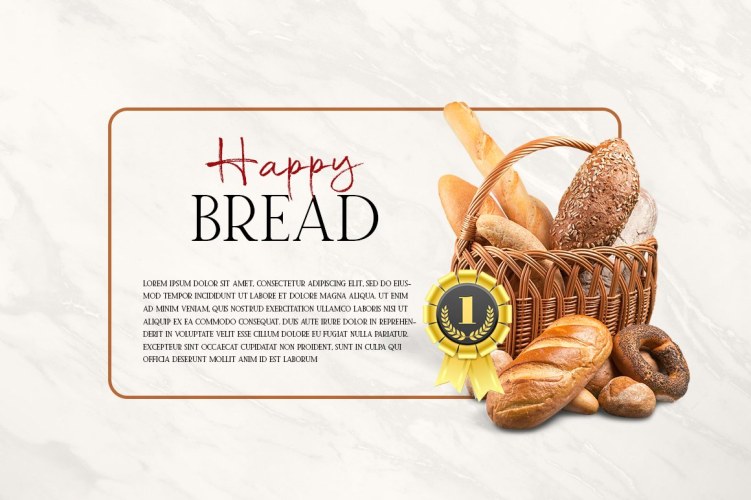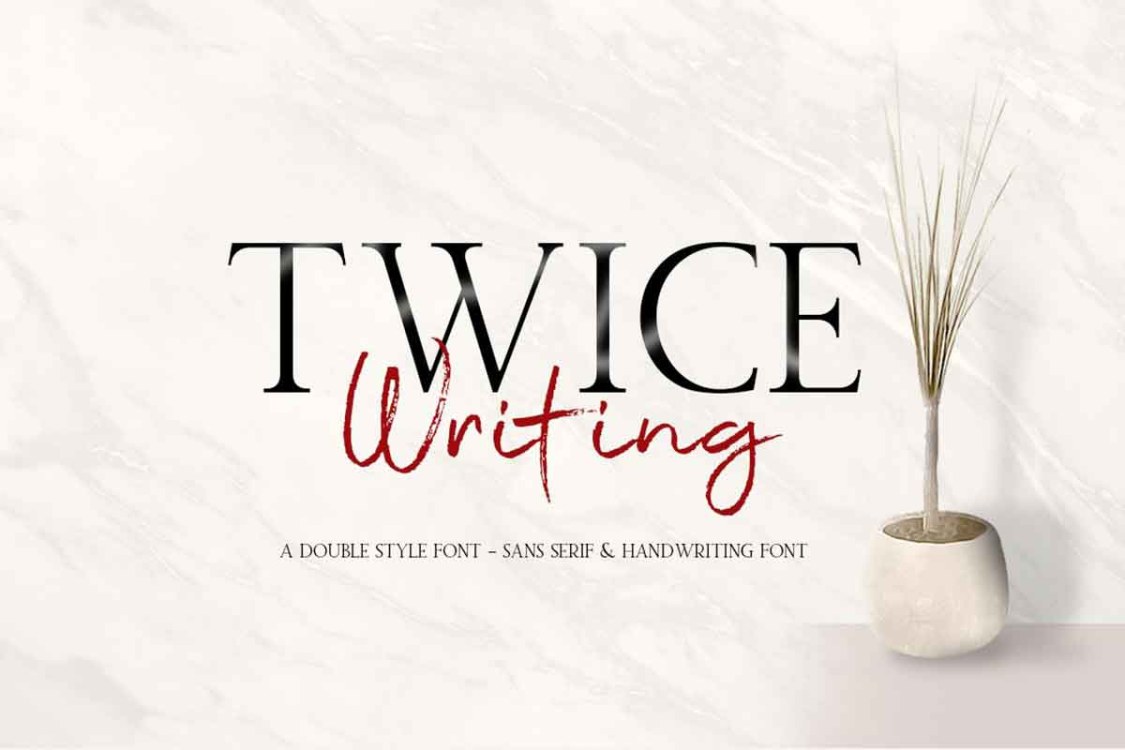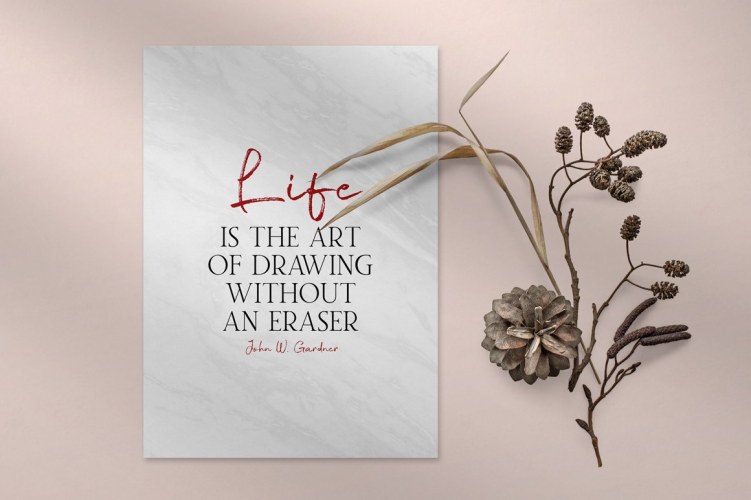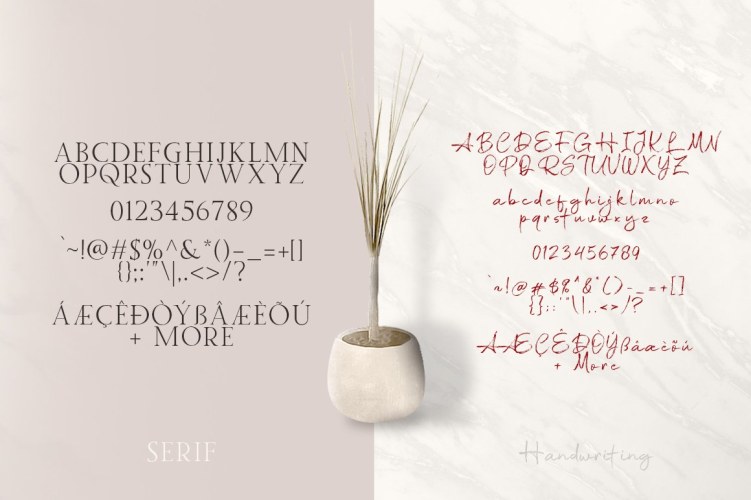
Twice Writing Font
The Twice Writing Font is a fun modern script font, fresh & modern style with Serif font. You can combine script and Serif to get amazing results. Twice Writing Font suitable for logo, branding, greeting card, poster and any design that you create.
Twice Writing Font is a Script And Handwritten font that brings a professional and versatile look to your projects. The  Twice Writing  Font is a fun modern script font, fresh & modern style with Serif font.